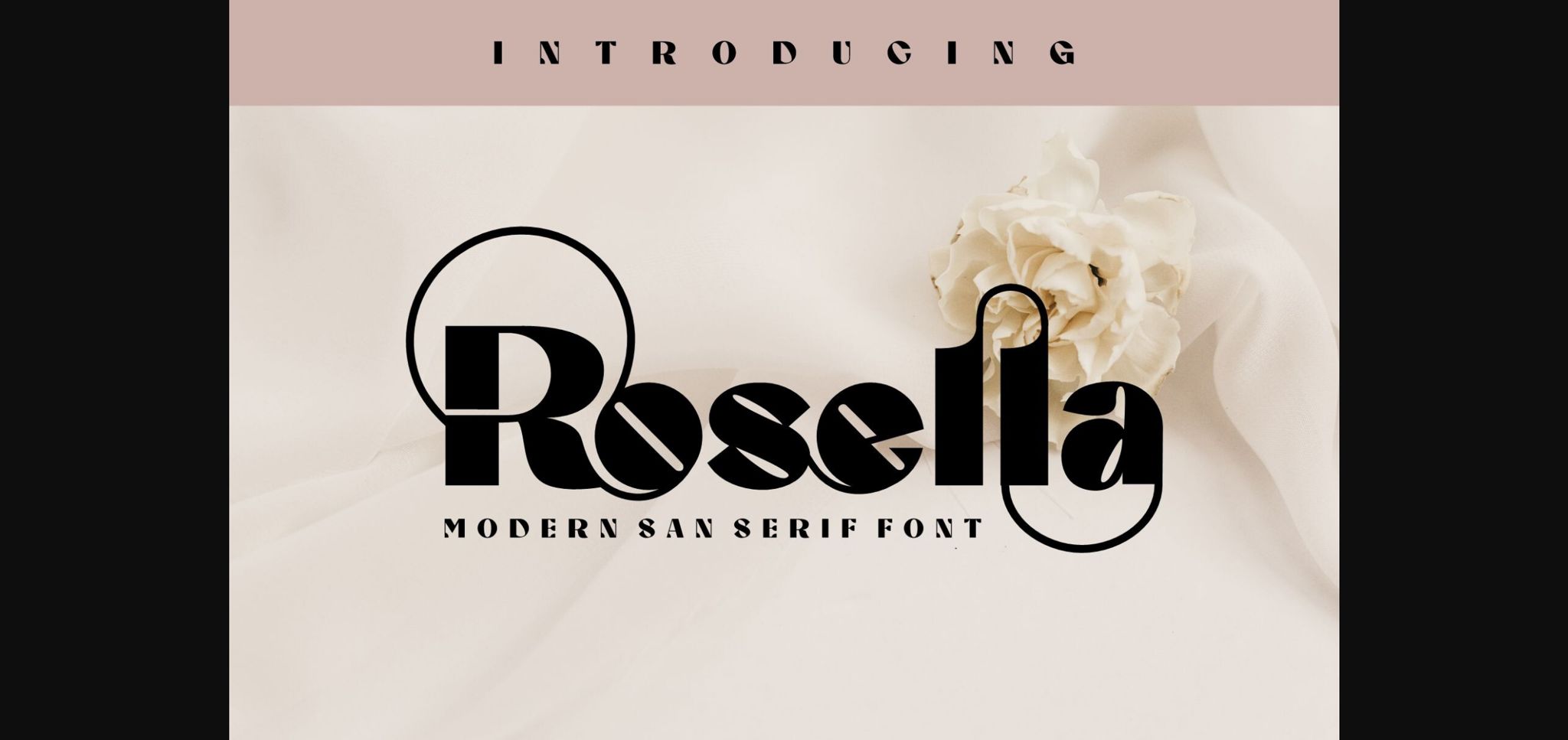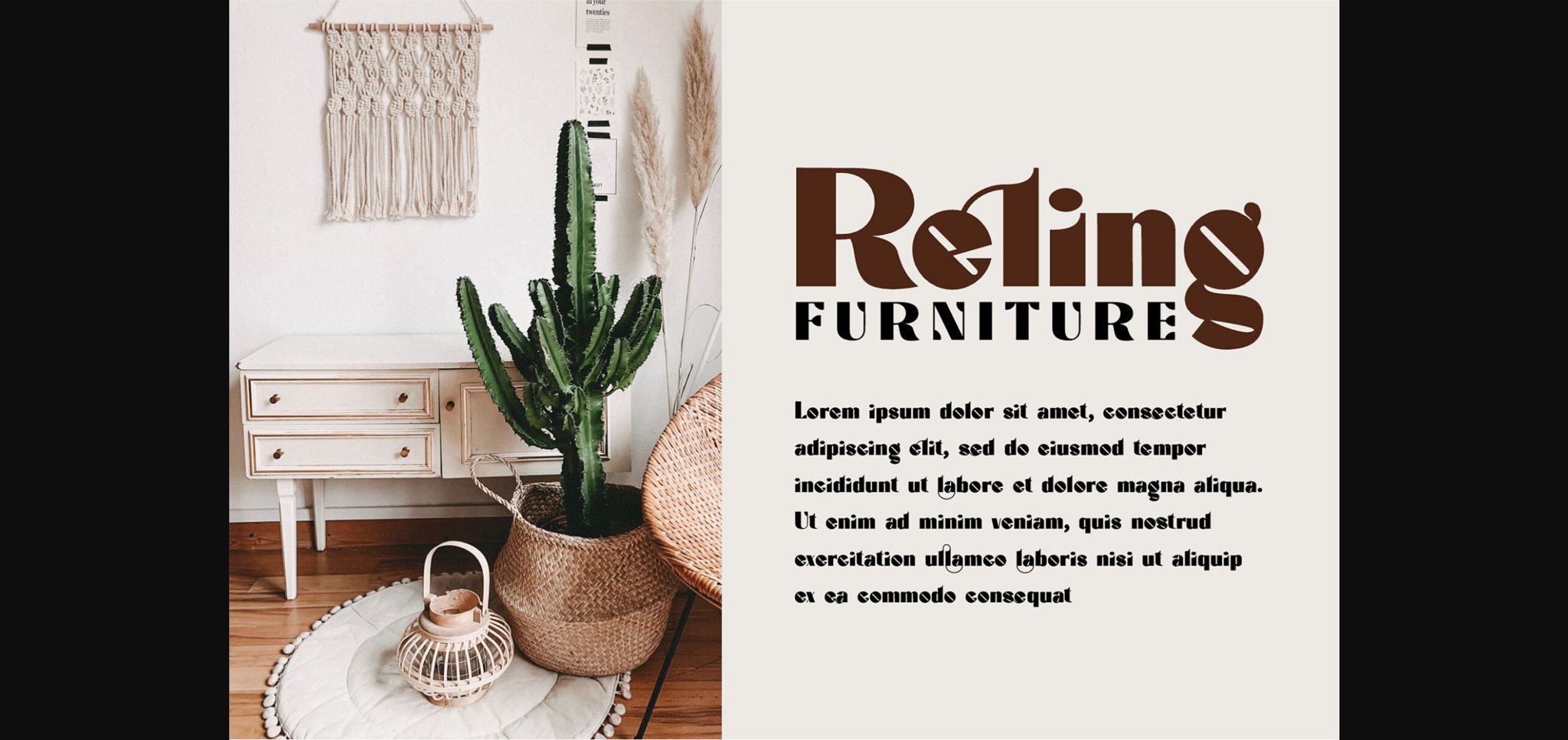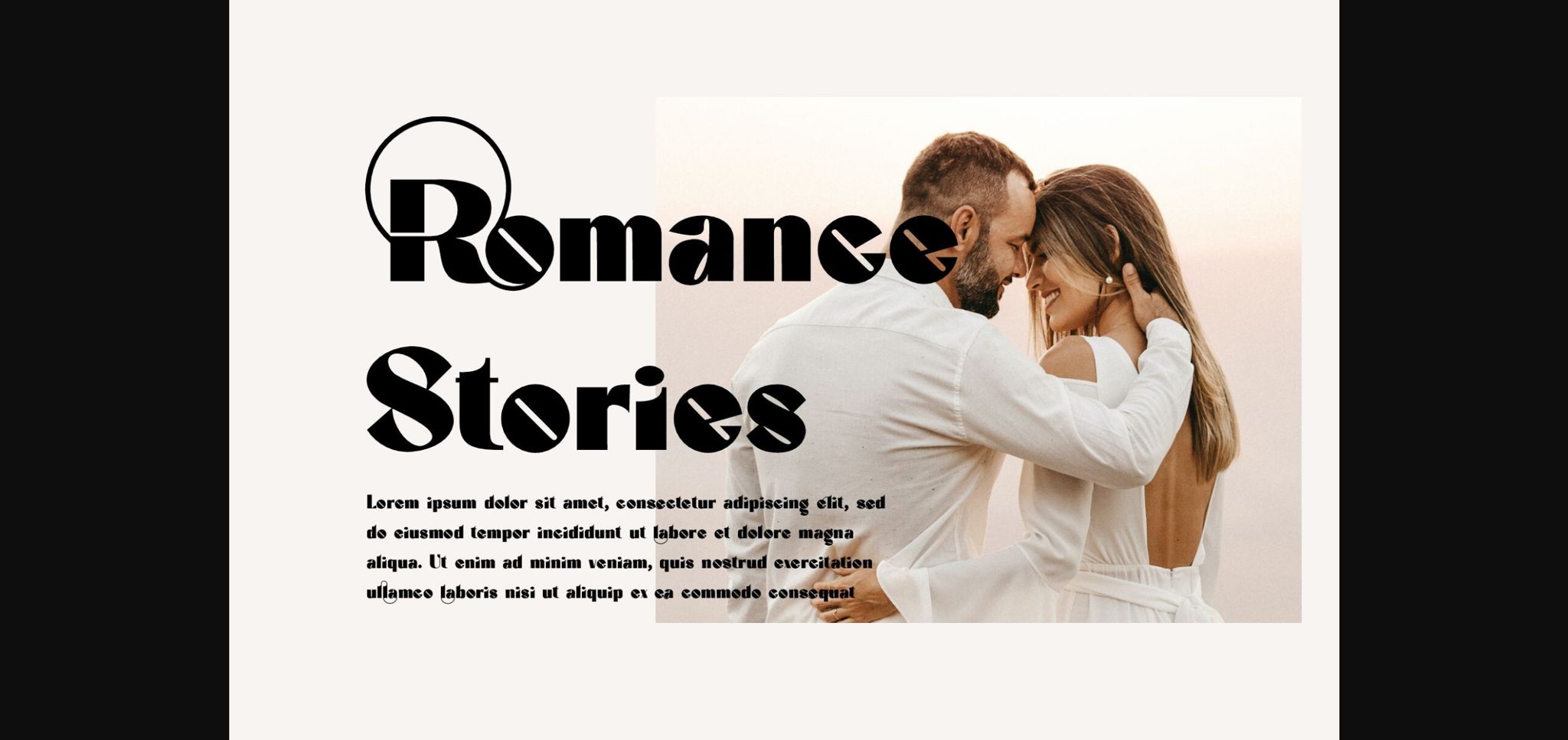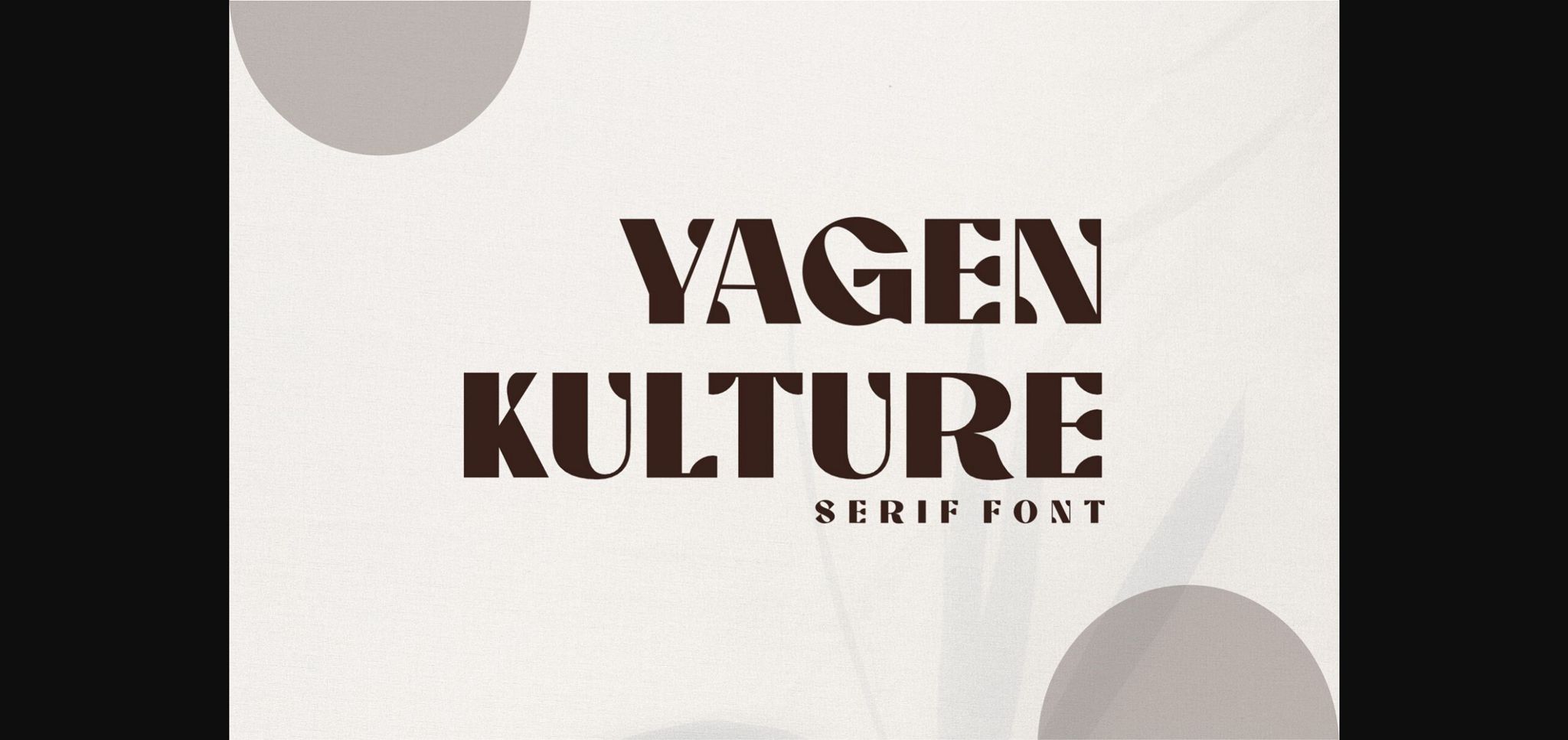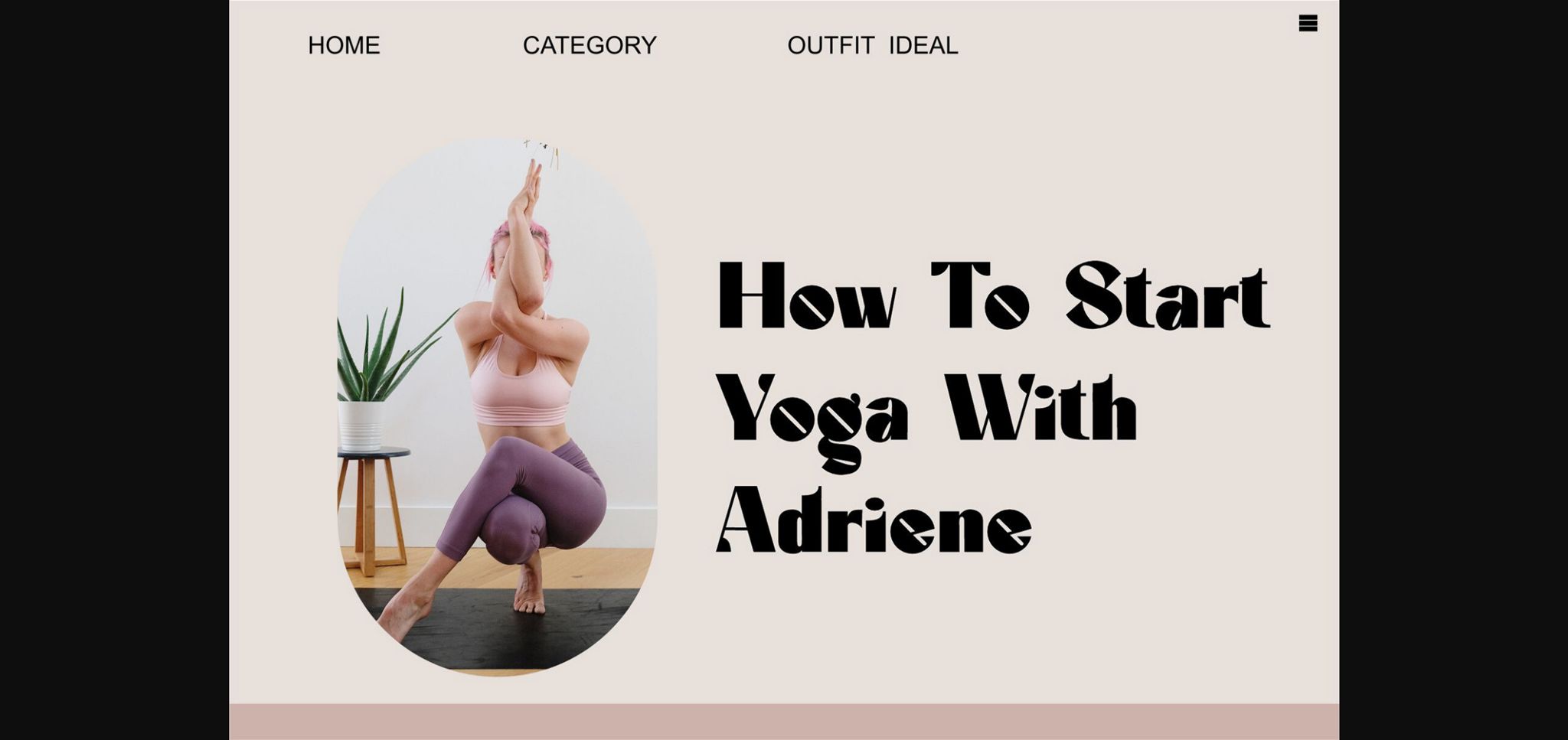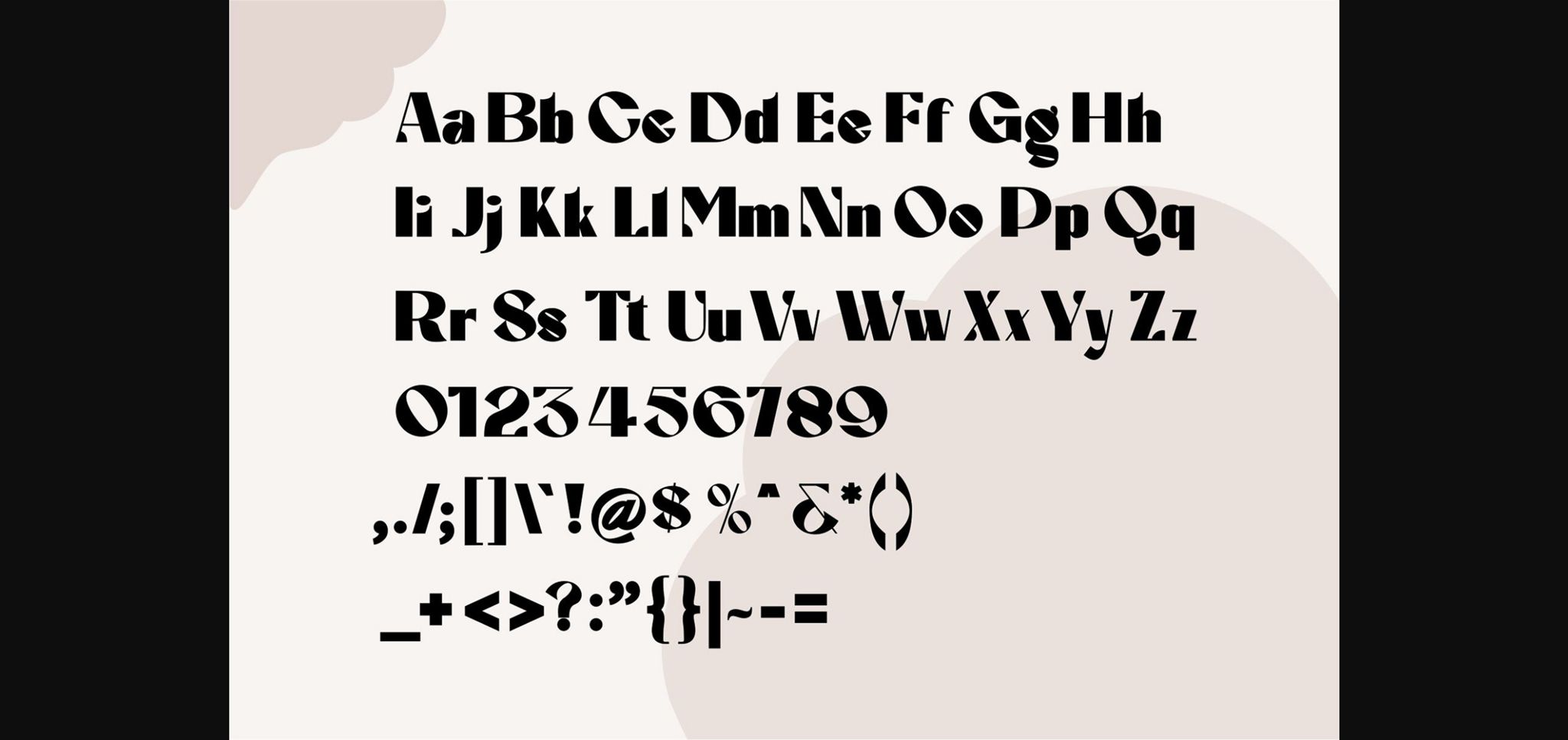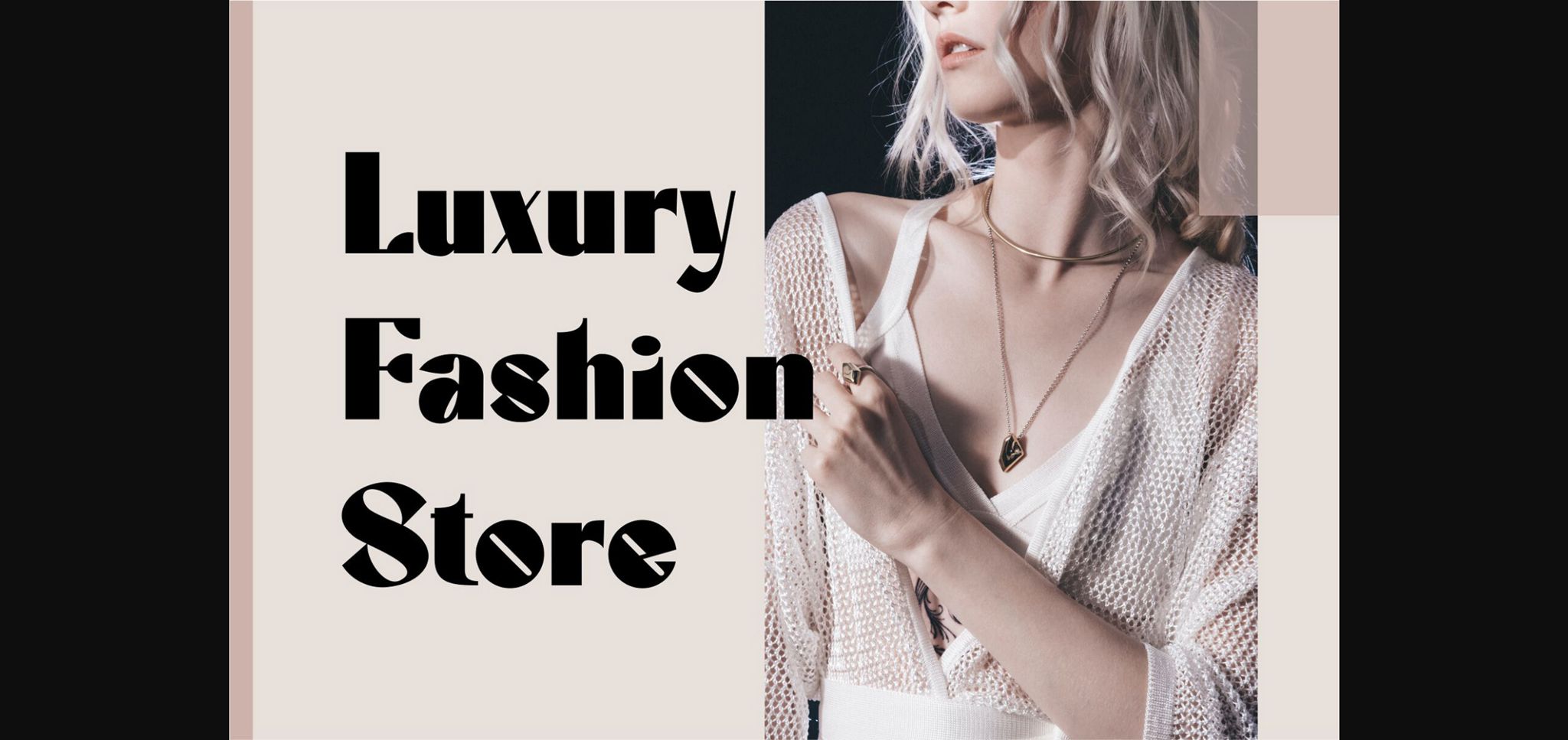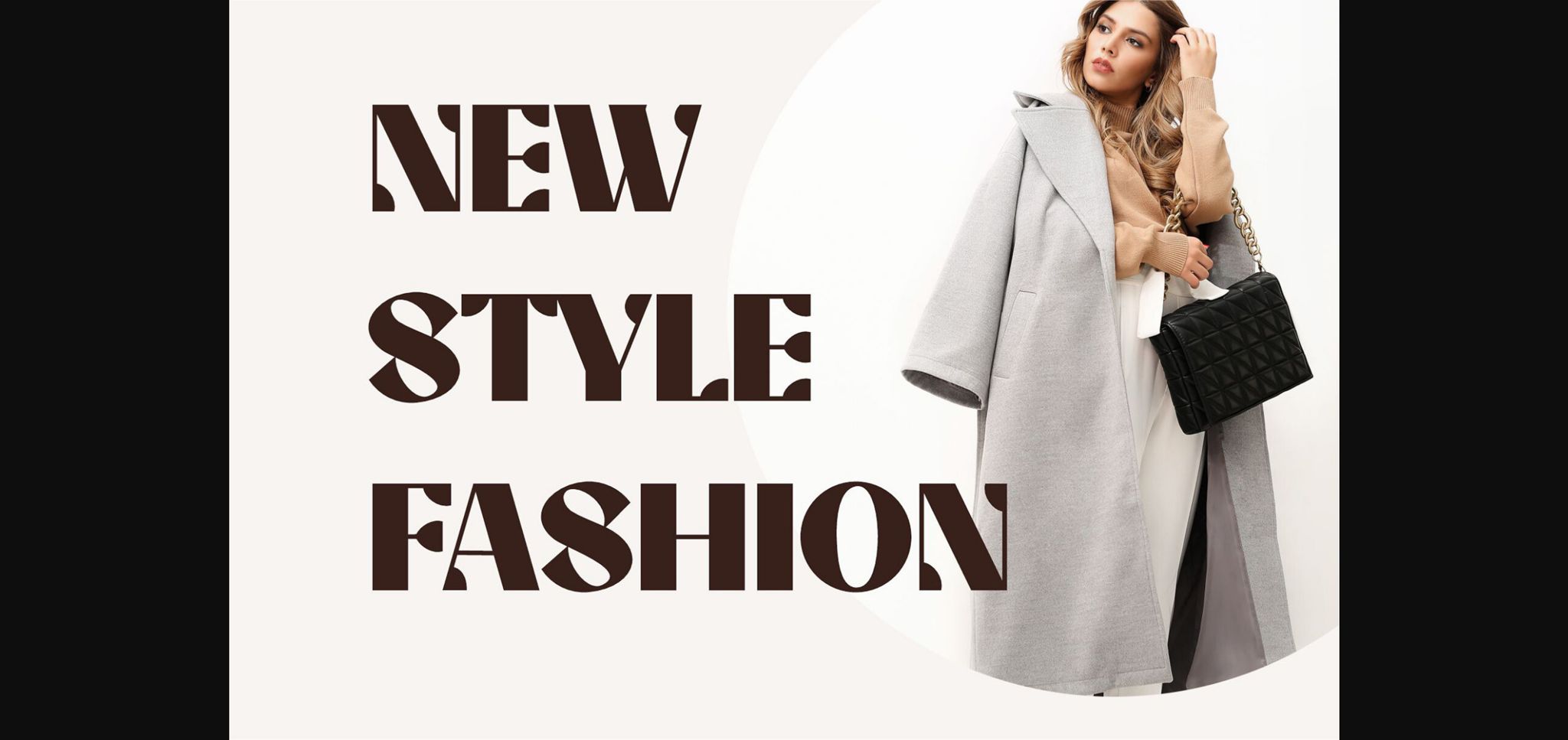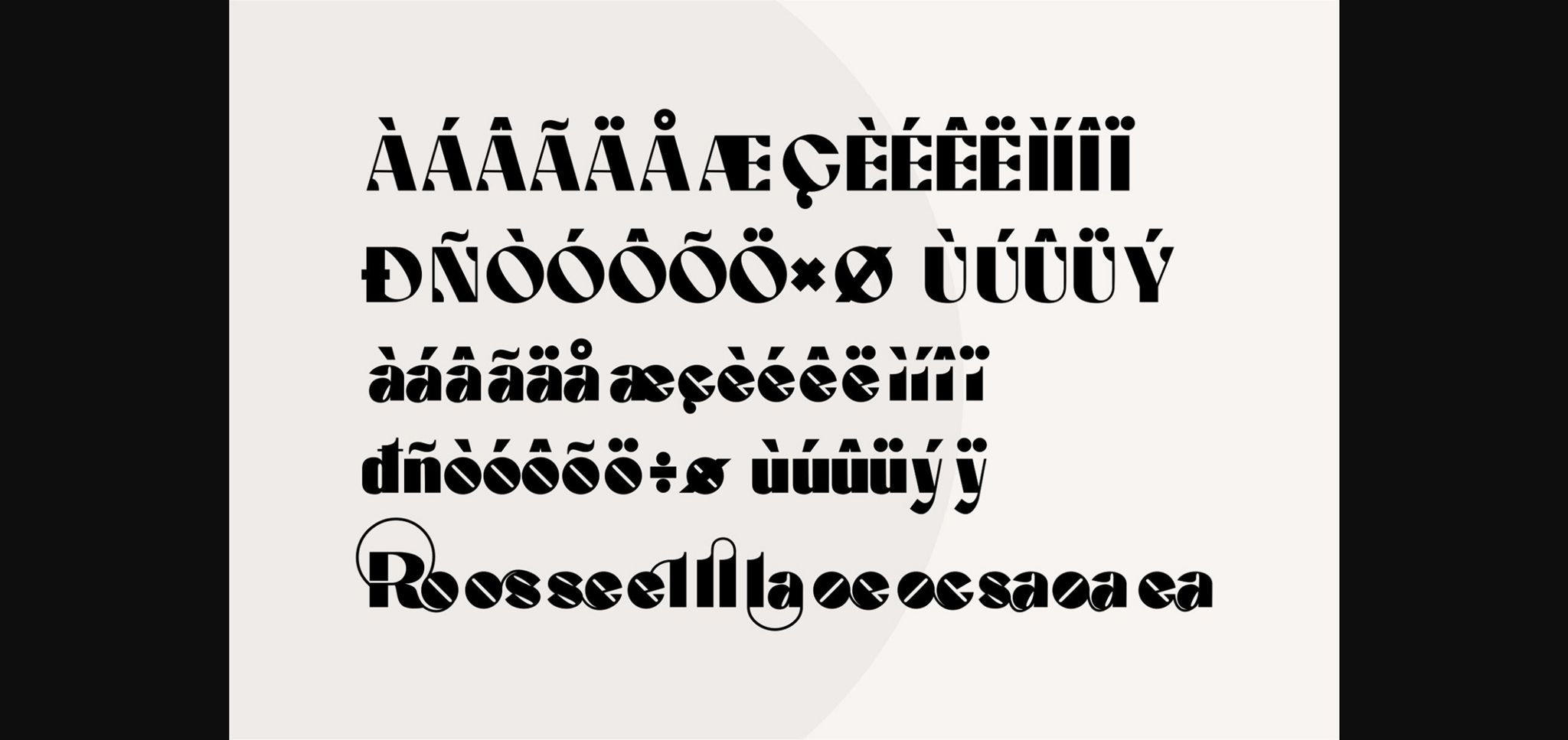
About Rosella Font
**Rosella** is an elegant and classy sans serif typeface – This font is modern and nostalgic and works great for logos, magazines, and social media. Already matched up and ready to be used together for your next design!
For those of you who need a touch of elegance, stylish, classy, chic, and modernity for your designs, this font was created for you!
Rosella was built with OpenType features includes ligatures, numbers, and punctuation, and supports other languages.
For those of you who need a touch of elegance, stylish, classy, chic, and modernity for your designs, this font was created for you!
Rosella was built with OpenType features includes ligatures, numbers, and punctuation, and supports other languages.